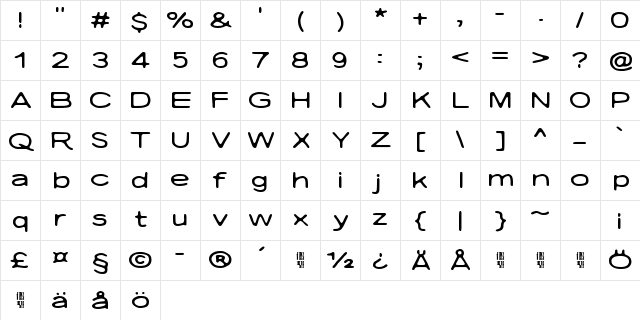
Nicotine Love Regular Free Font
Nicotine Love Regular
Designer: junkohanhero
Design Context for Nicotine Love
Nicotine Love is a composed and adaptable typeface that performs quietly and consistently across a wide range of design contexts.